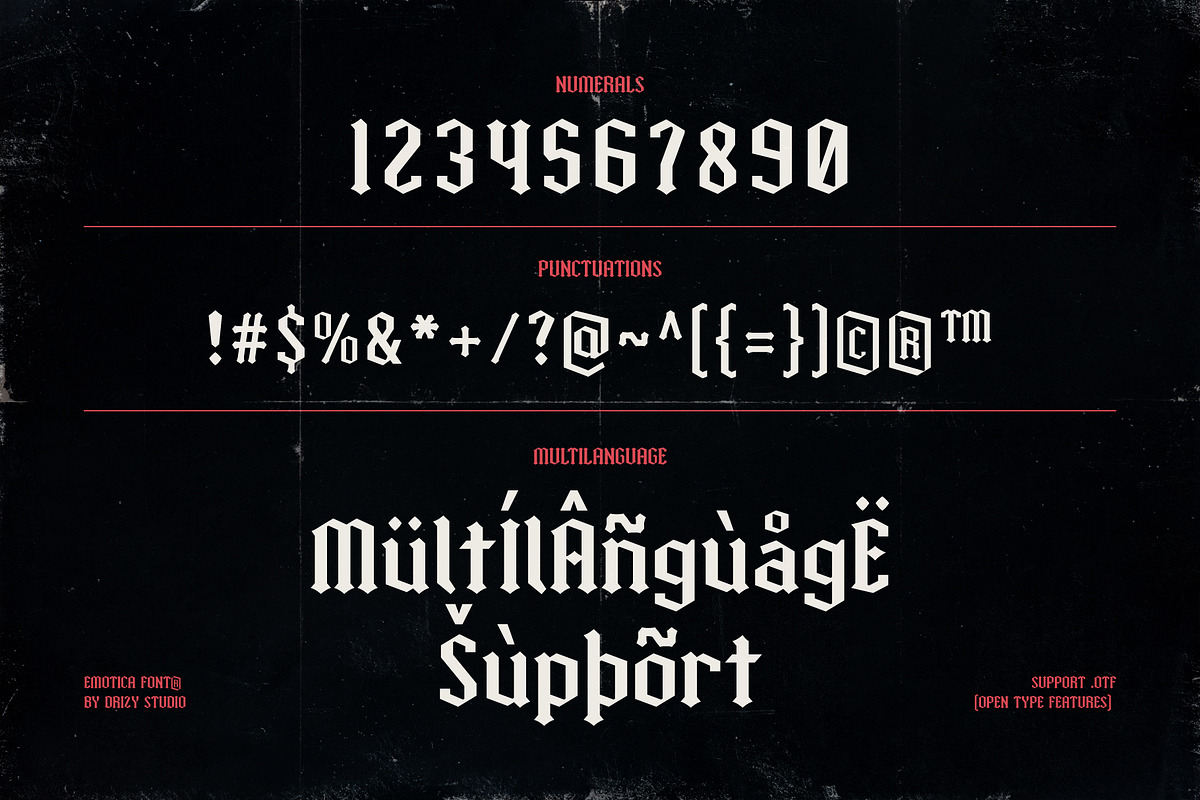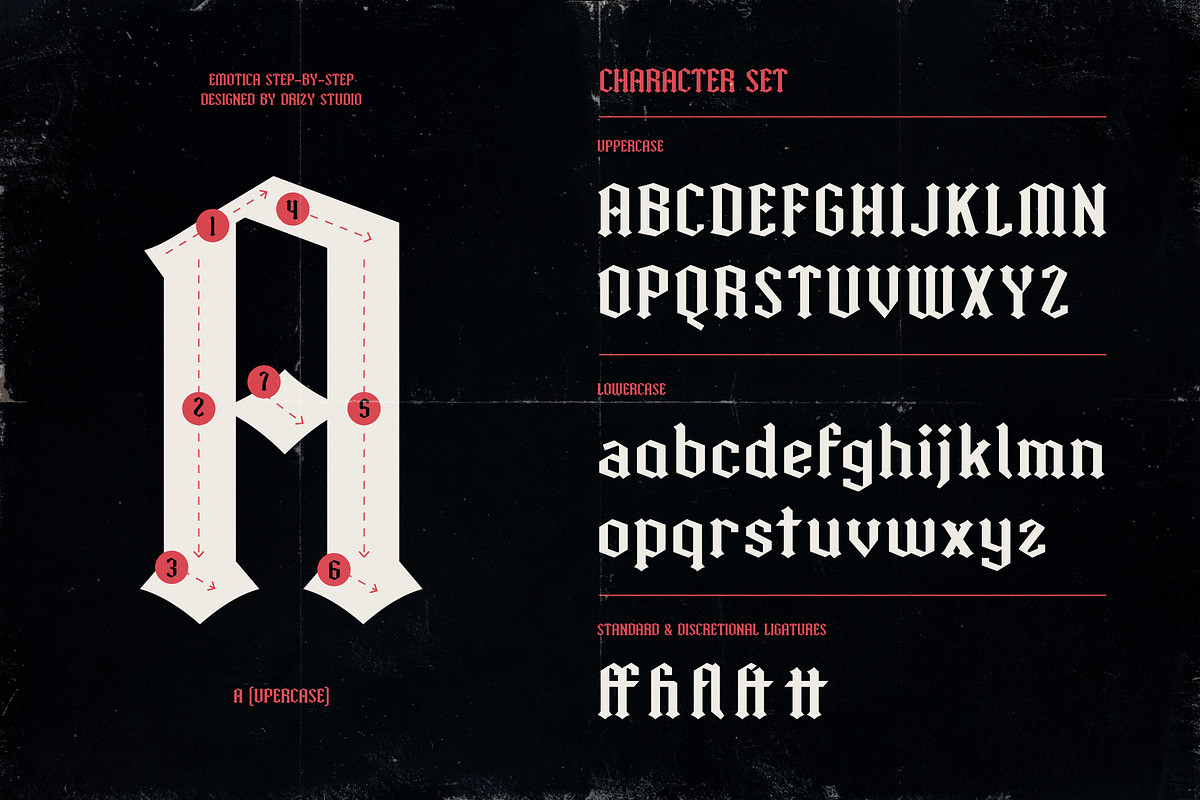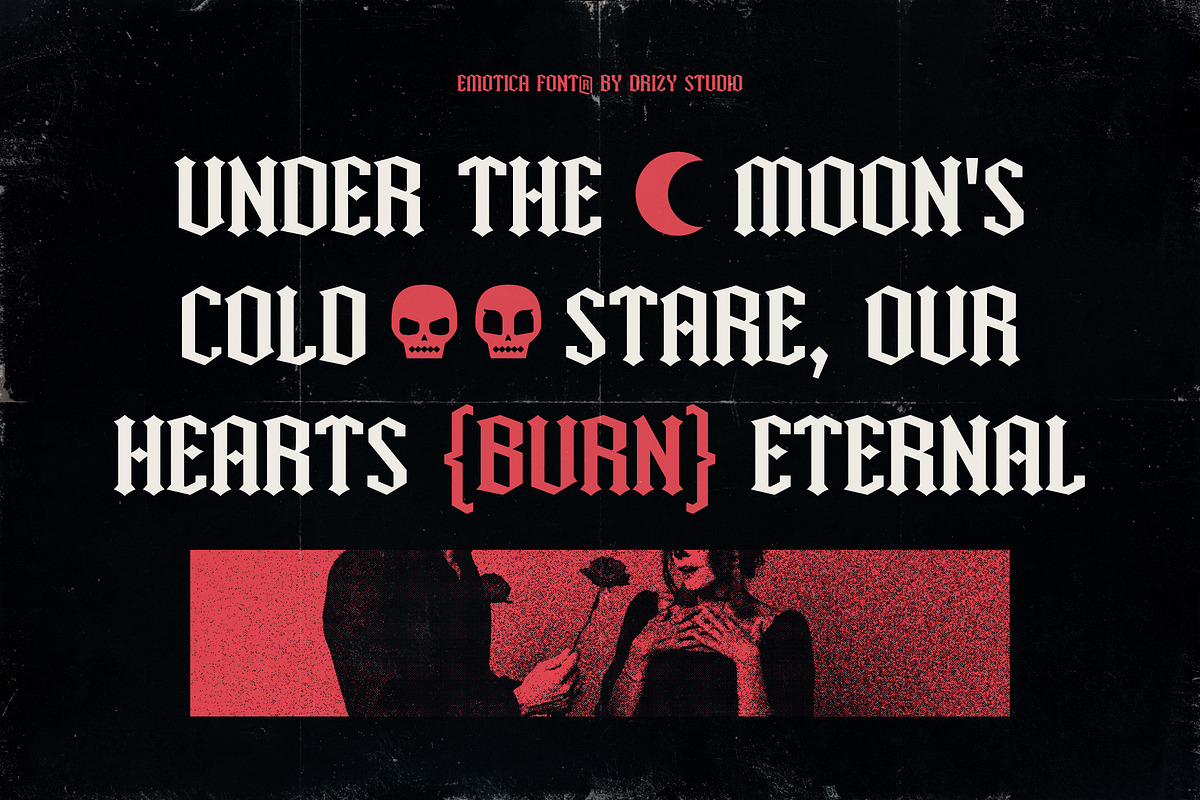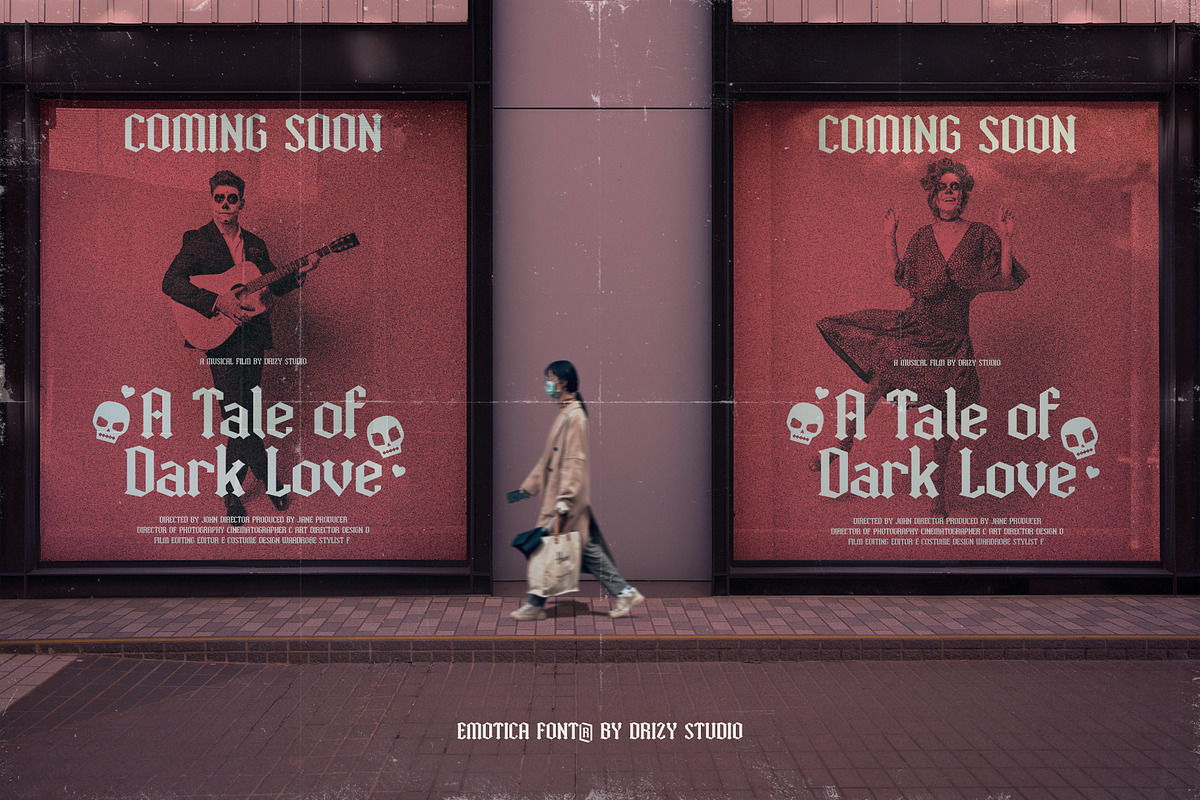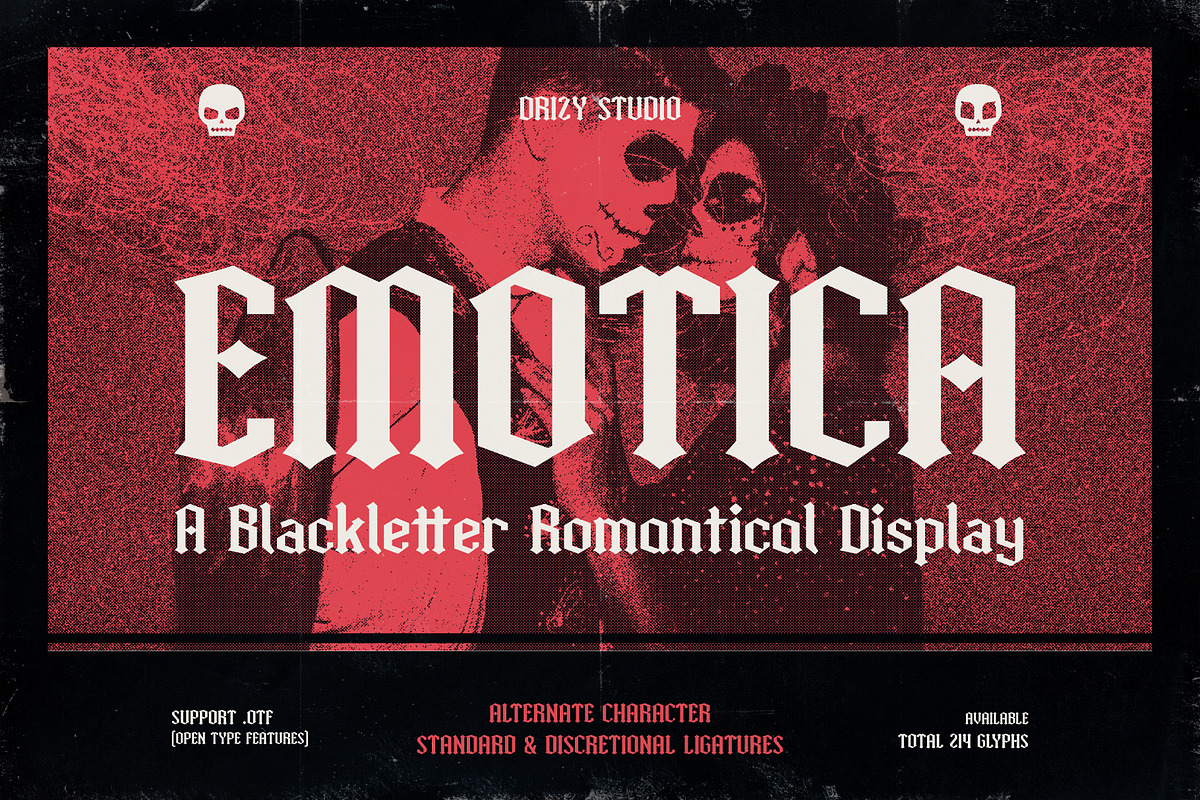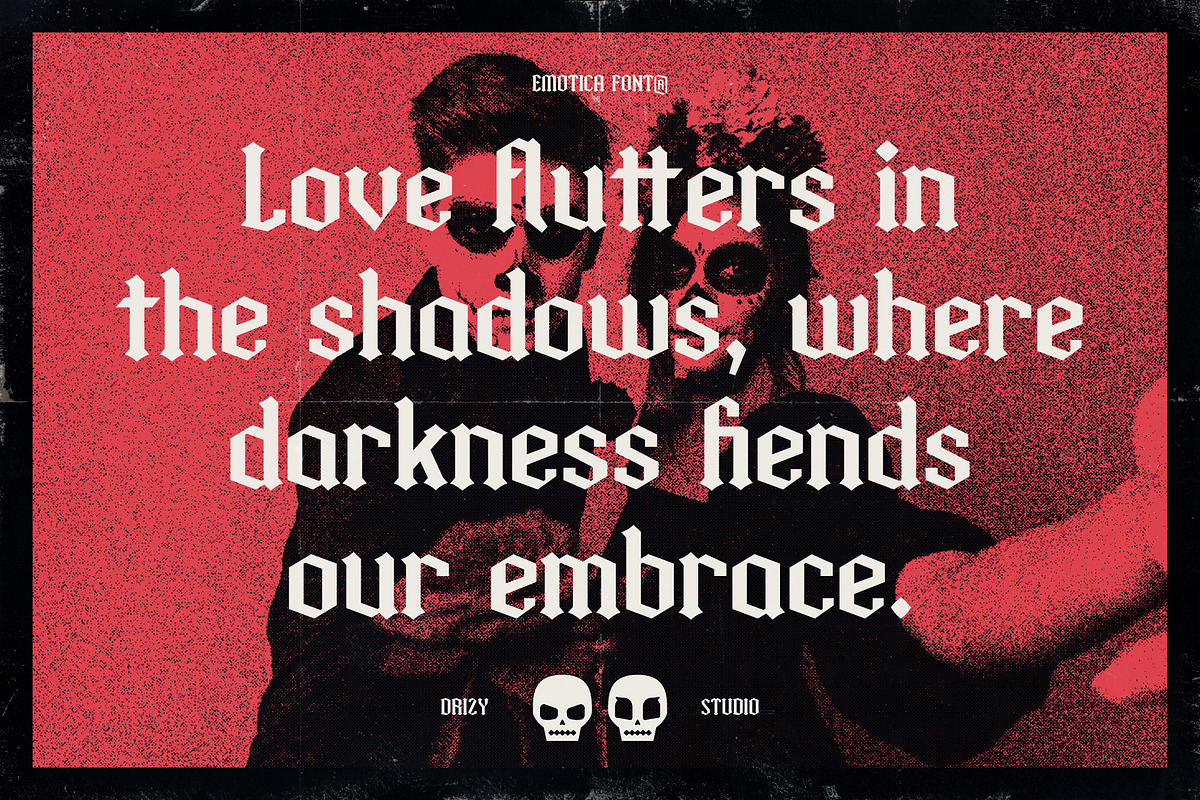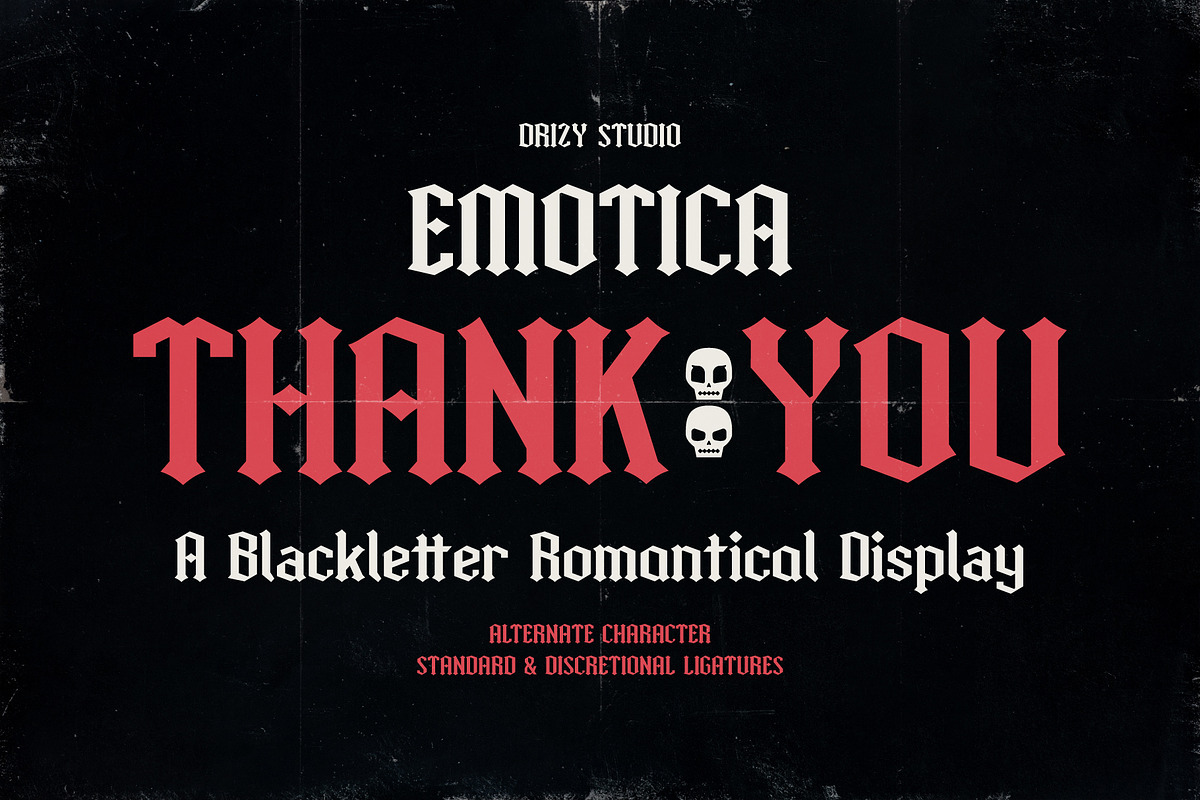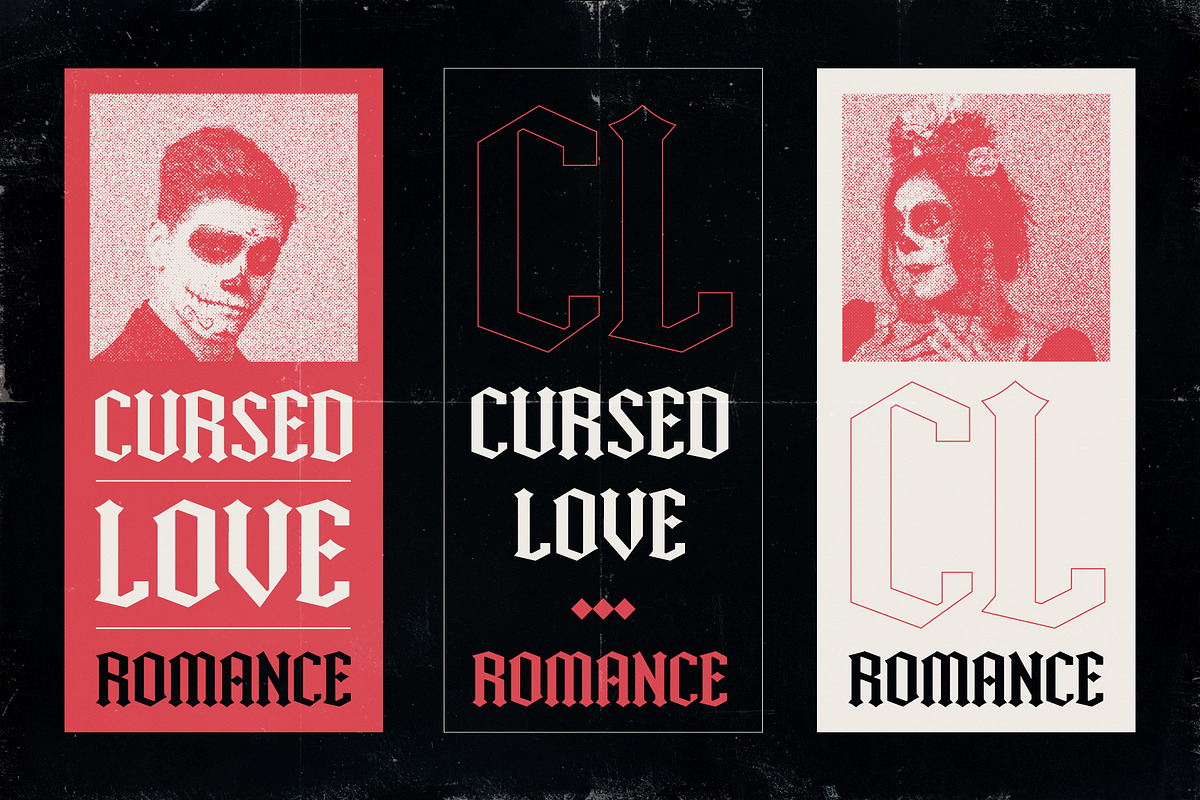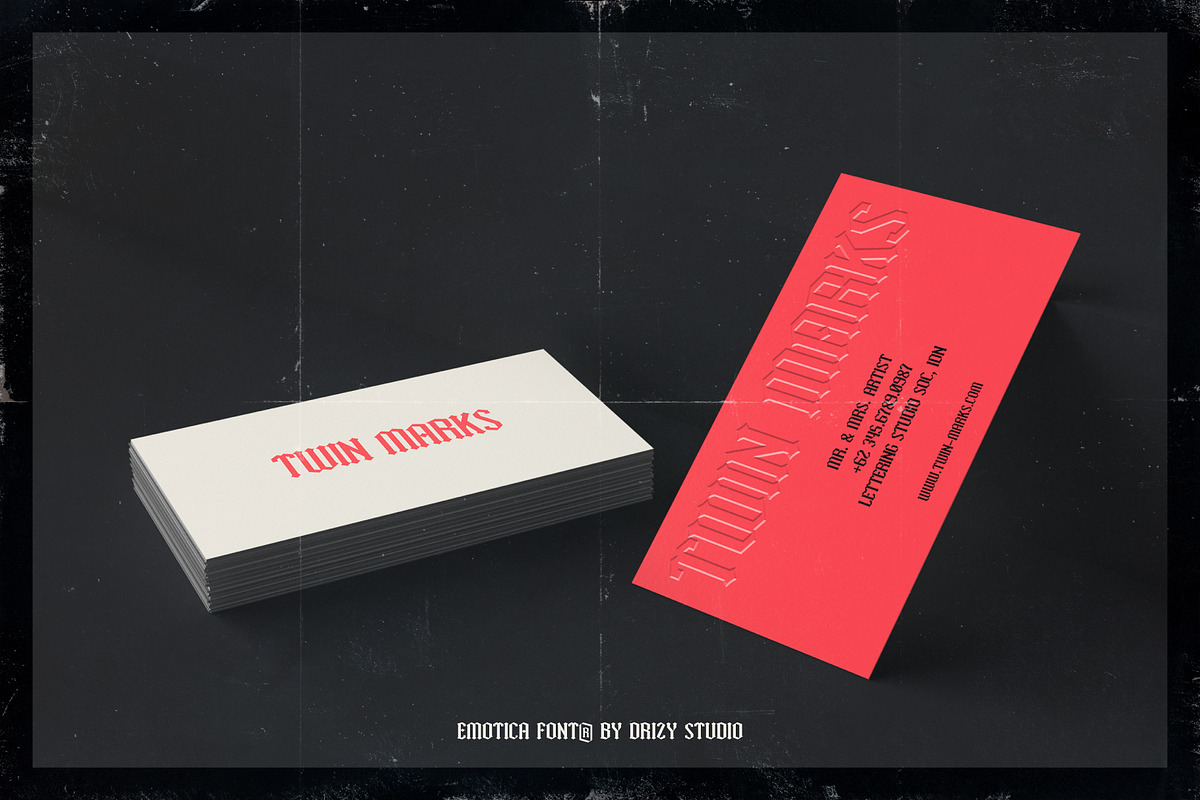
Emotica – Blackletter Romance Font
Emotica is a bold and captivating font that perfectly blends the dramatic flair of blackletter style with a touch of romantic elegance. Designed for those who embrace emotional depth and gothic aesthetics, this font stands out with its intricate curves and sharp angles, evoking a sense of mystery and passion. Whether you’re creating expressive posters, heartfelt invitations, or moody branding, Emotica offers a timeless yet contemporary feel. Its Emo Romance theme adds a unique edge, making it ideal for projects that seek to tell a story of beauty, emotion, and intensity.
Emotica – Blackletter Romance Font features:
- Character Set (Uppercase & Lowercase)
- Punctuation & Numbers
- Standard & Discretional ligatures
- Alternates “a”
Elevate and explore the design possibilities with this Emo Romance Font!